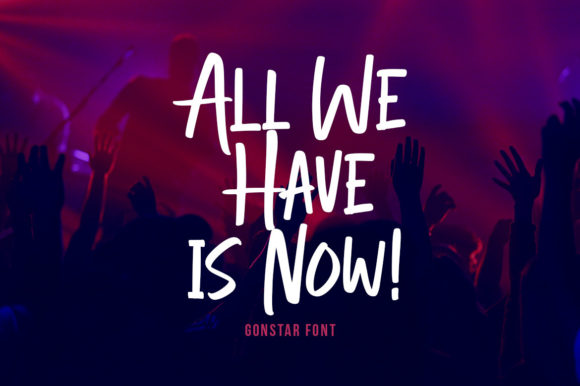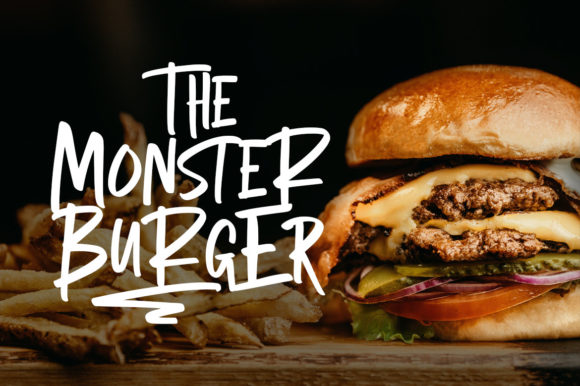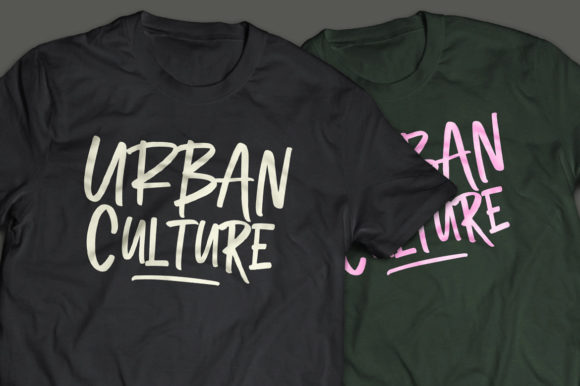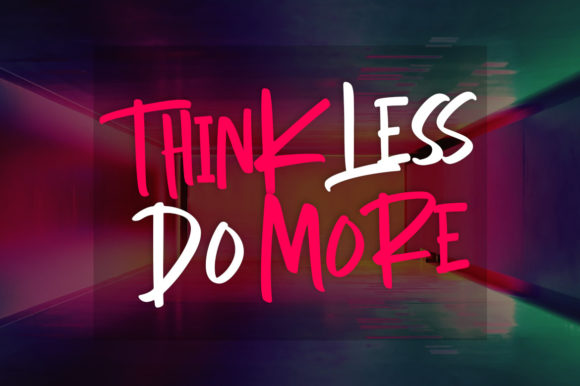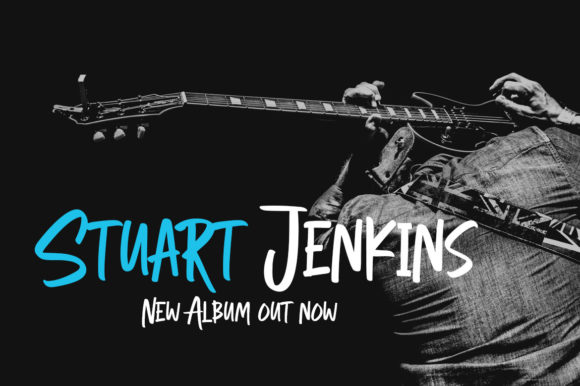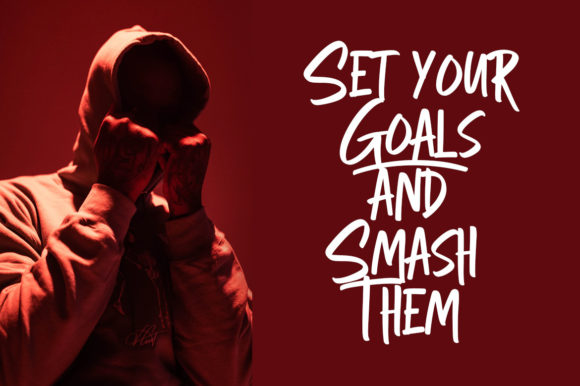
Gonstar Font: Elevate Your Crafting Ideas with a Cool, Brushed Display Font
Are you a designer, crafter, or DIY enthusiast looking for a unique and versatile font to take your projects to the next level? Look no further than Gonstar Font, a cool, brushed display font that’s perfect for a wide range of crafting ideas. In this article, we’ll explore the features and benefits of Gonstar Font, and show you how to use it to elevate your cards, branding, labels, and more.
What is Gonstar Font?
Gonstar Font is a stylish, hand-brushed display font that’s designed to add a touch of personality and flair to your projects. Its unique, distressed texture gives it a one-of-a-kind look that’s sure to grab attention. Whether you’re creating handmade cards, crafting custom labels, or developing a brand identity, Gonstar Font is the perfect choice.
Key Features of Gonstar Font
- Cool, Brushed Texture: Gonstar Font features a unique, hand-brushed texture that gives it a distinctive, organic look.
- Display Font: Designed specifically for display use, Gonstar Font is perfect for headlines, titles, and other attention-grabbing elements.
- Versatile: Use Gonstar Font for a wide range of crafting ideas, from cards and invitations to branding, labels, and more.
- Easily Customizable: Gonstar Font is easy to customize, allowing you to adjust the size, color, and style to suit your project’s needs.
How to Use Gonstar Font in Your Projects
Gonstar Font is incredibly versatile, and can be used in a variety of crafting projects. Here are a few ideas to get you started:
Handmade Cards
Add a personal touch to your handmade cards with Gonstar Font. Use it to create custom titles, captions, or messages that will make your cards stand out.
Branding and Labels
Use Gonstar Font to create custom labels, logos, or branding elements that will give your products a unique, handmade look.
Invitations and Party Decor
Create custom invitations, party hats, and other decorations with Gonstar Font. Its bold, eye-catching texture is sure to add a touch of excitement to any celebration.
Tips and Tricks for Using Gonstar Font
Here are a few tips and tricks to help you get the most out of Gonstar Font:
- Experiment with Colors: Gonstar Font looks great in a variety of colors, so don’t be afraid to experiment and find the perfect hue for your project.
- Play with Texture: Gonstar Font’s distressed texture is a key part of its charm, but you can also experiment with combining it with other textures and patterns.
- Use it Sparingly: Gonstar Font is a bold, attention-grabbing font, so use it sparingly to avoid overwhelming your design.
- Gonstar Font is a cool, brushed display font perfect for crafting projects.
- Its unique texture and versatility make it suitable for a wide range of applications.
- Use Gonstar Font to add a personal touch to your handmade cards, branding, labels, and more.